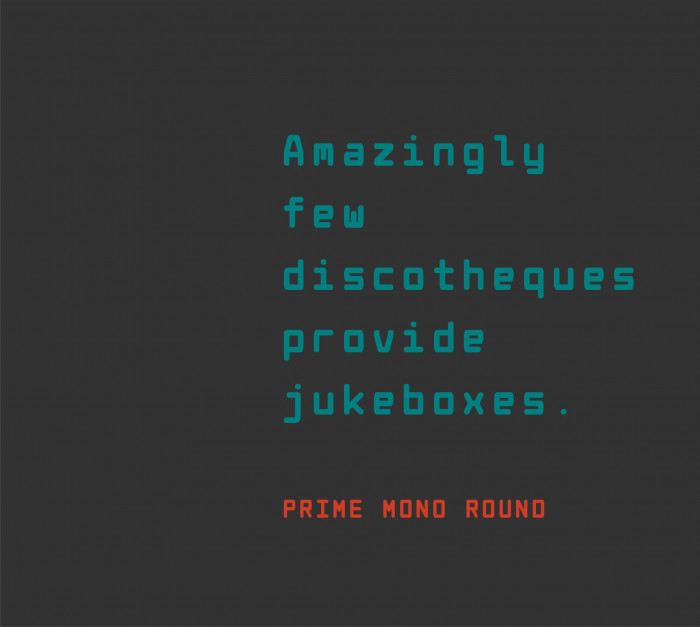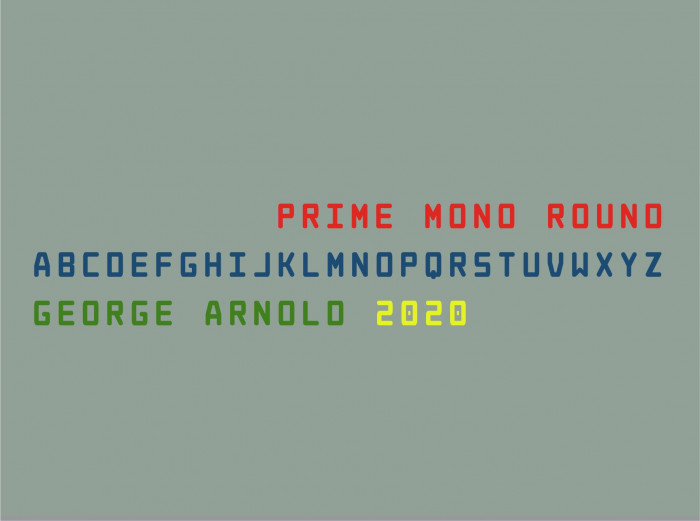
• A bold, rounded, mono spaced typeface;  useful at various scales, I think.  Designed primarily for use in English,  also useful in French and Spanish.  It's functionality in Greek is limitted, only really useful in a display context, or where only Demotic usage is required; not useful in Katharevousa, Koine, Classical, etc.  Open Font Liscence, hope it is enjoyable and of use.
a simple yet very nice design, kind of has the air of old school technology
I like your smooth curves in corners and terminals.
Edit: eliminated some funkiness in the question mark.
(undesireable funkiness).
MAGNIFICENT.